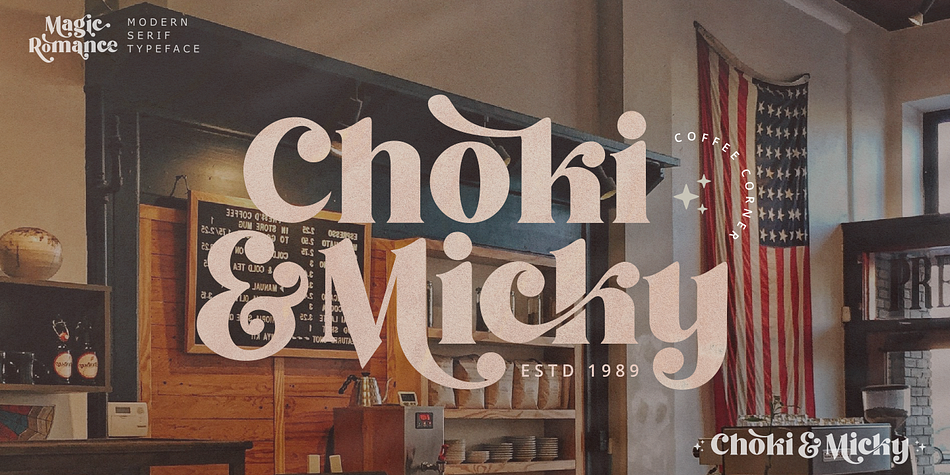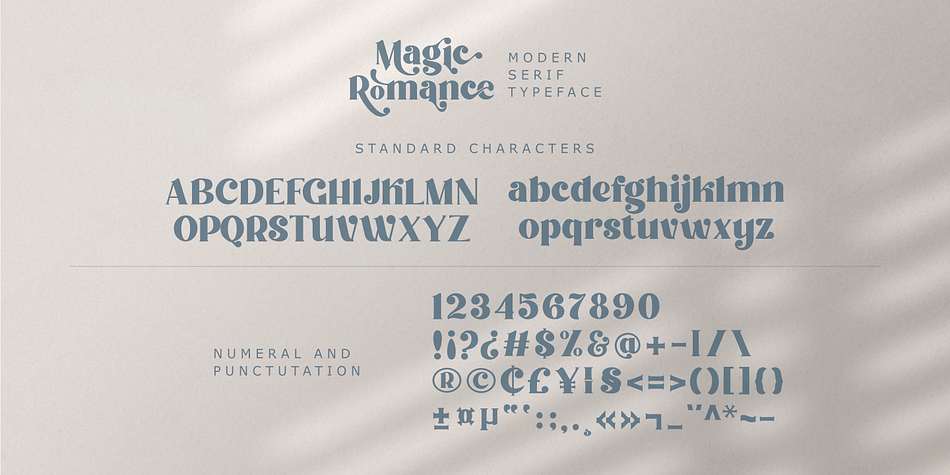
Magic Romance
Magic Romance is a display serif font family published by Zeenesia Studio.
Magic Romance is a retro styled, trendy and fashionable serif font. This font is PUA encoded which means you can access all of the amazing glyphs and ligatures with ease!
– Standard glyphs
– Multilingual
– Symbols and Number